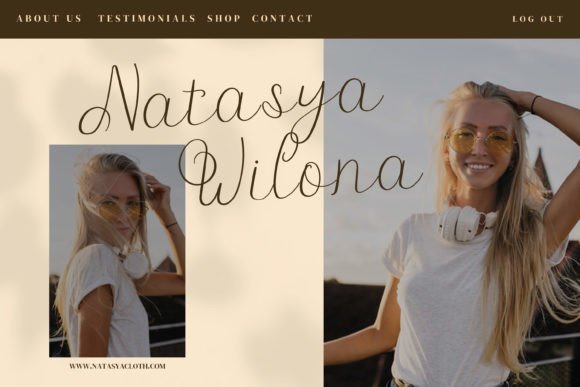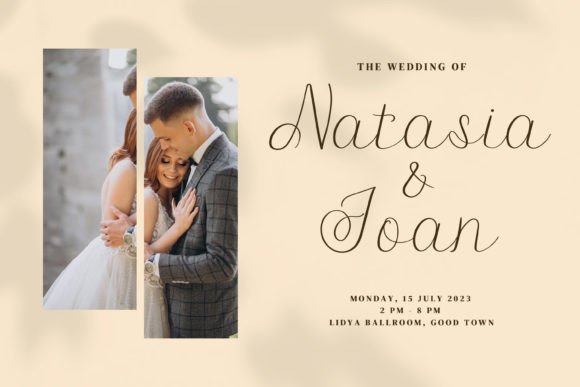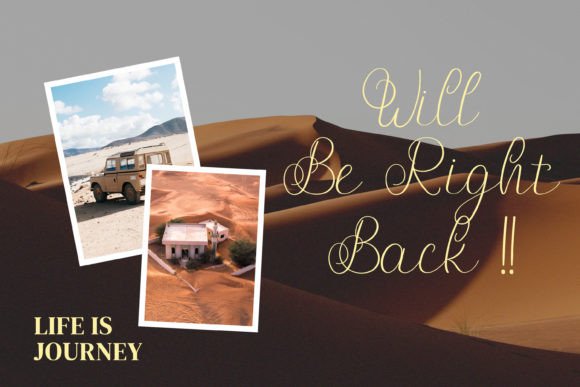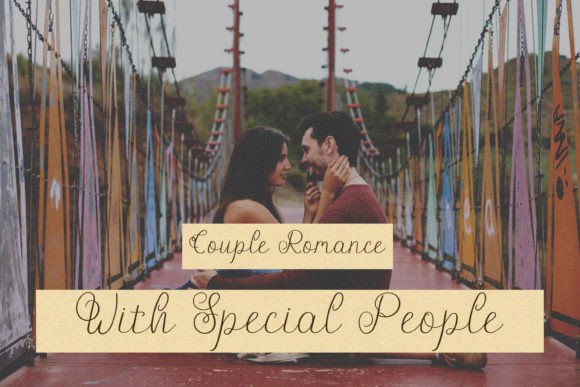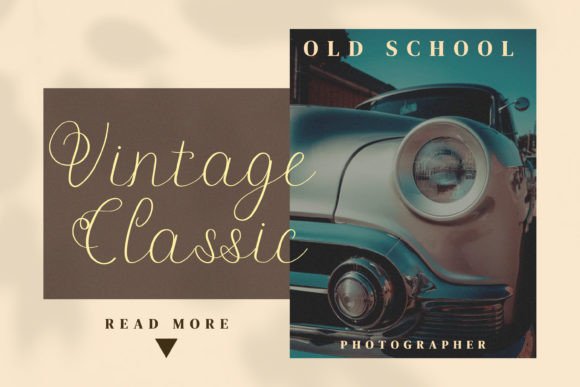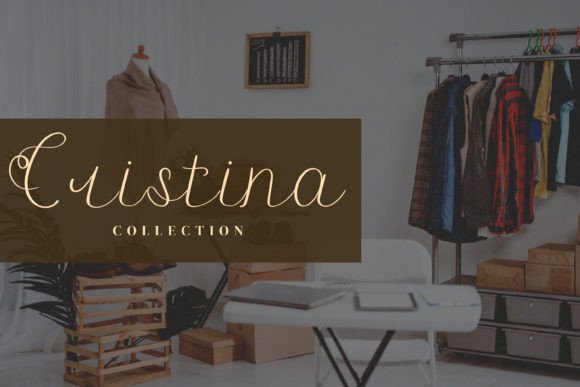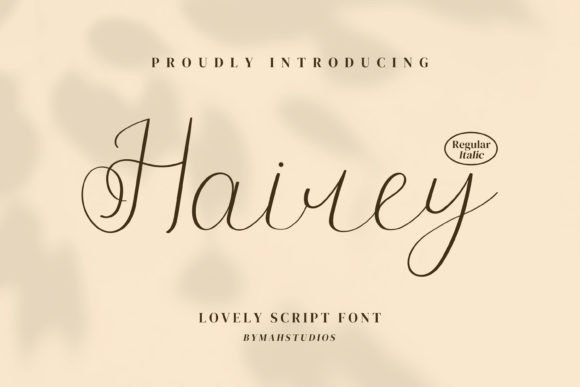
Hairey Font: Elevate Your Designs with a Touch of Romance and Luxury
In the world of typography, fonts play a crucial role in conveying the tone and aesthetic of a design. For those seeking to add a dash of romance, luxury, and modernity to their creations, the Hairey Font is an exceptional choice. This stunning font is designed to bring elegance and sophistication to various design projects, making it perfect for creative professionals and crafters alike.
The Essence of Hairey Font
Hairey is a modern, retro, and luxurious font that stands out for its harmonious outline of words. Its unique design elements evoke a sense of nostalgia while still feeling contemporary and fresh. The font’s romantic undertones make it an ideal selection for designs that require a touch of elegance and refinement.
Key Features of Hairey Font
- Modern, Retro, and Luxurious Design: Hairey Font boasts a distinctive style that blends modernity with retro charm, making it versatile for various design applications.
- Romantic Appeal: The font’s design brings romance to the forefront, adding an emotional and aesthetic appeal to any project.
- PUA Encoded: Being PUA (Private Use Area) encoded, Hairey Font offers easy access to all glyphs and swashes. This feature allows designers to explore a wide range of creative possibilities without the hassle of character mapping.
- Versatile Applications: From elegant invitations and event posters to sophisticated advertisements, Hairey Font is suitable for any project that demands a fancy art form.
Applications of Hairey Font
The versatility of Hairey Font makes it an excellent choice for a variety of design projects. Here are some of the ideal applications:
- Invitations: Whether it’s a wedding invitation, a birthday party invite, or any other special occasion, Hairey Font adds a touch of luxury and romance.
- Event Posters: For events like fashion shows, luxury product launches, or art exhibitions, Hairey Font can help create visually stunning posters.
- Advertisements: In advertising, capturing the audience’s attention is crucial. Hairey Font, with its elegant and modern look, can make advertisements stand out.
- Stationery and Packaging: For brands looking to elevate their packaging or stationery design, Hairey Font offers a sophisticated aesthetic.
Why Designers and Crafters Love Hairey Font
Designers and crafters appreciate fonts that offer both aesthetic appeal and practicality. Hairey Font ticks all the right boxes:
- Easy to Use: With its PUA encoding, designers can easily access and use the font’s extensive features.
- Highly Versatile: Its modern, retro, and luxurious design makes it suitable for a wide range of projects.
- Unique Aesthetic: Hairey Font provides a distinctive look that can help designs stand out in a crowded market.
Hairey Font is a remarkable addition to any designer’s toolkit. Its blend of modernity, retro charm, and luxury, along with its romantic appeal, makes it perfect for projects that demand a touch of elegance. Whether you’re designing invitations, event posters, advertisements, or any other material that requires a fancy art form, Hairey Font is an excellent choice. Its PUA encoding ensures ease of use, allowing designers to focus on creativity rather than technicalities. For those looking to infuse their designs with sophistication and romance, Hairey Font is undoubtedly worth exploring.